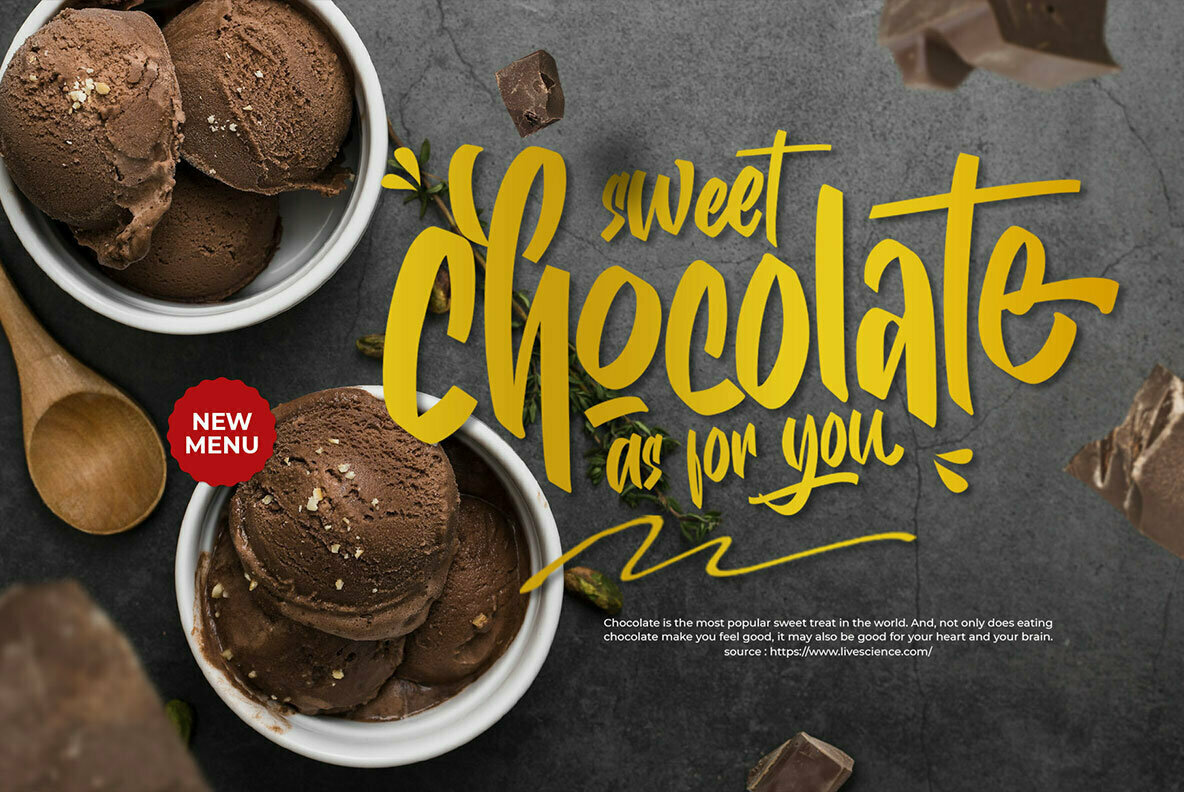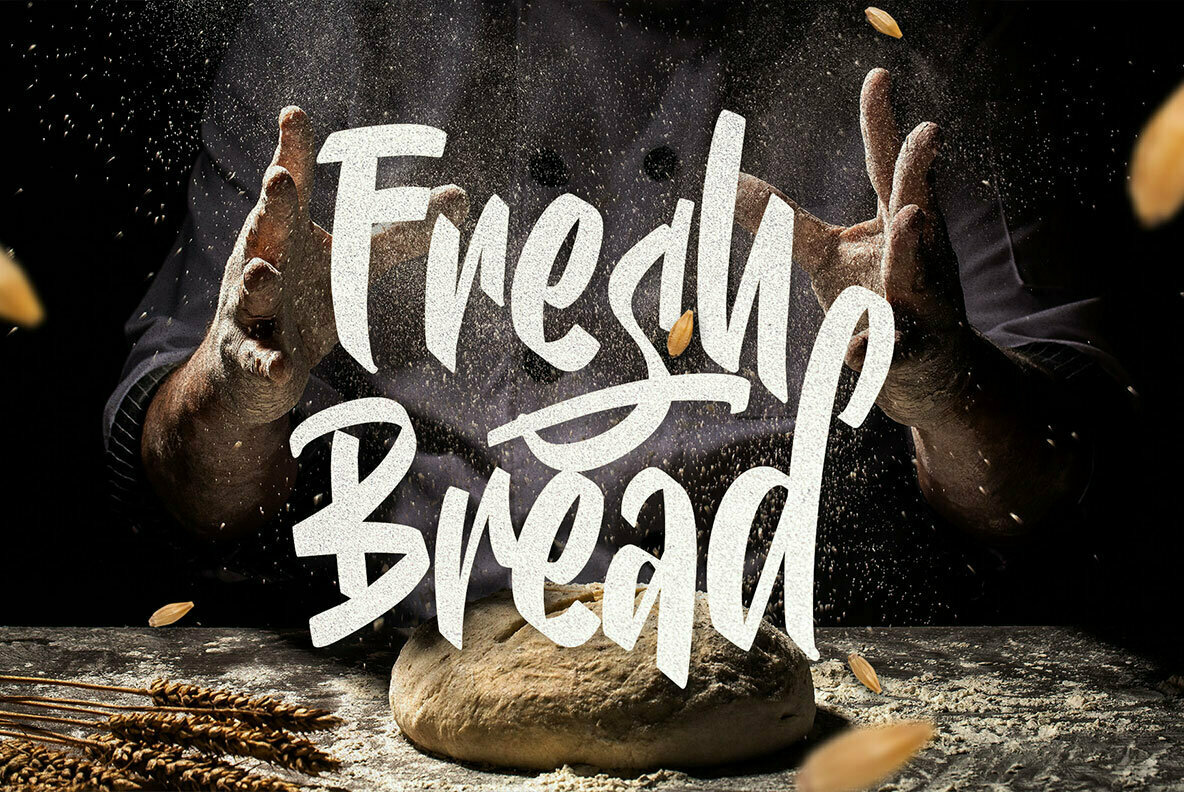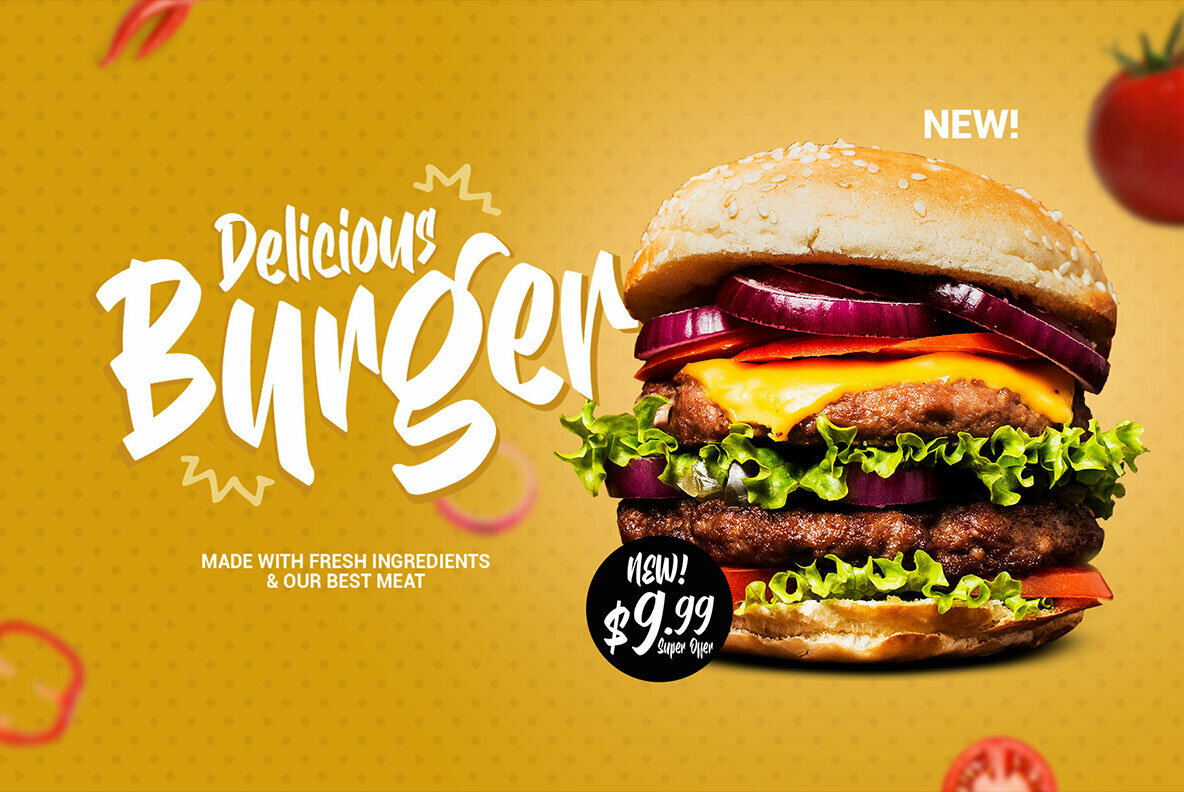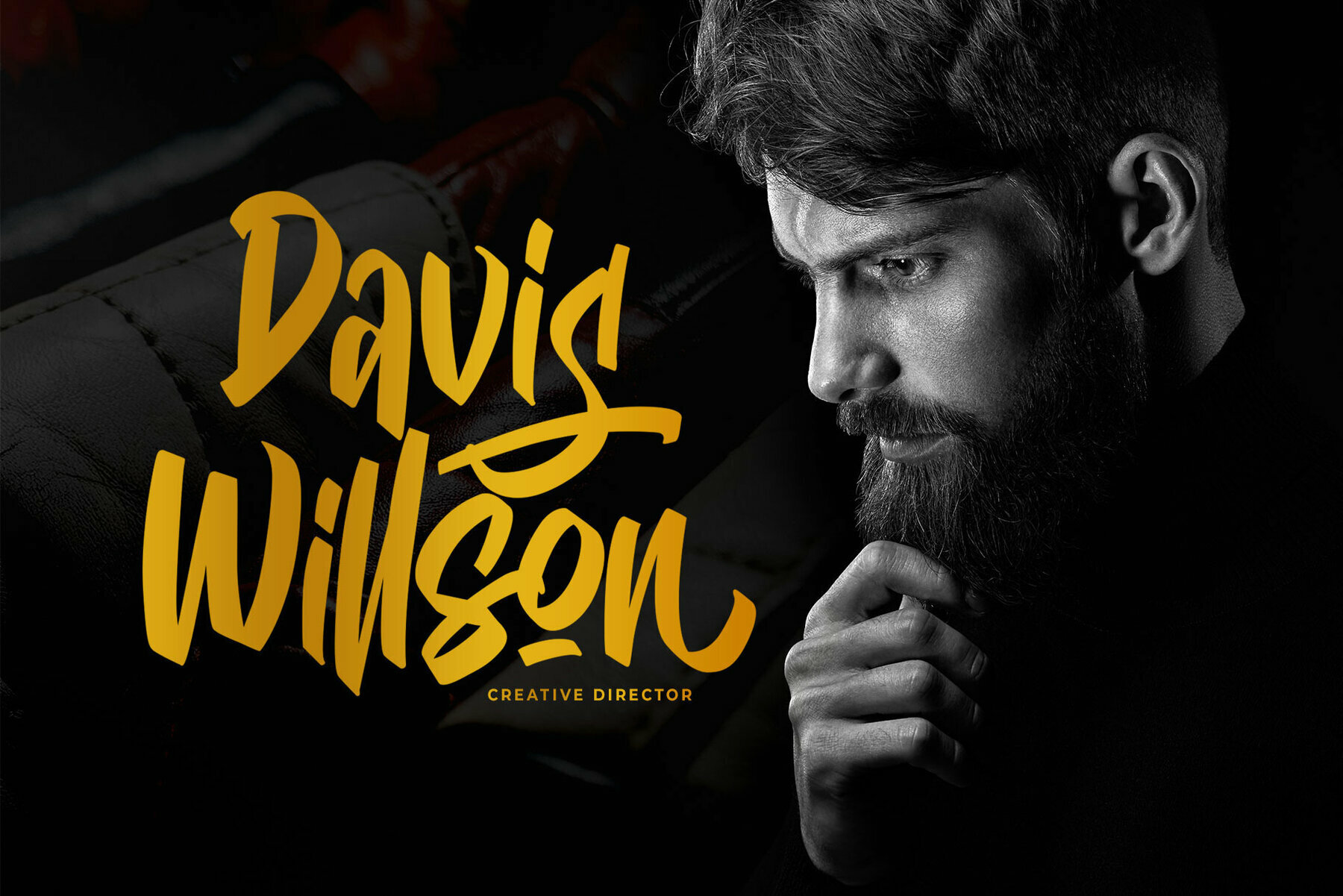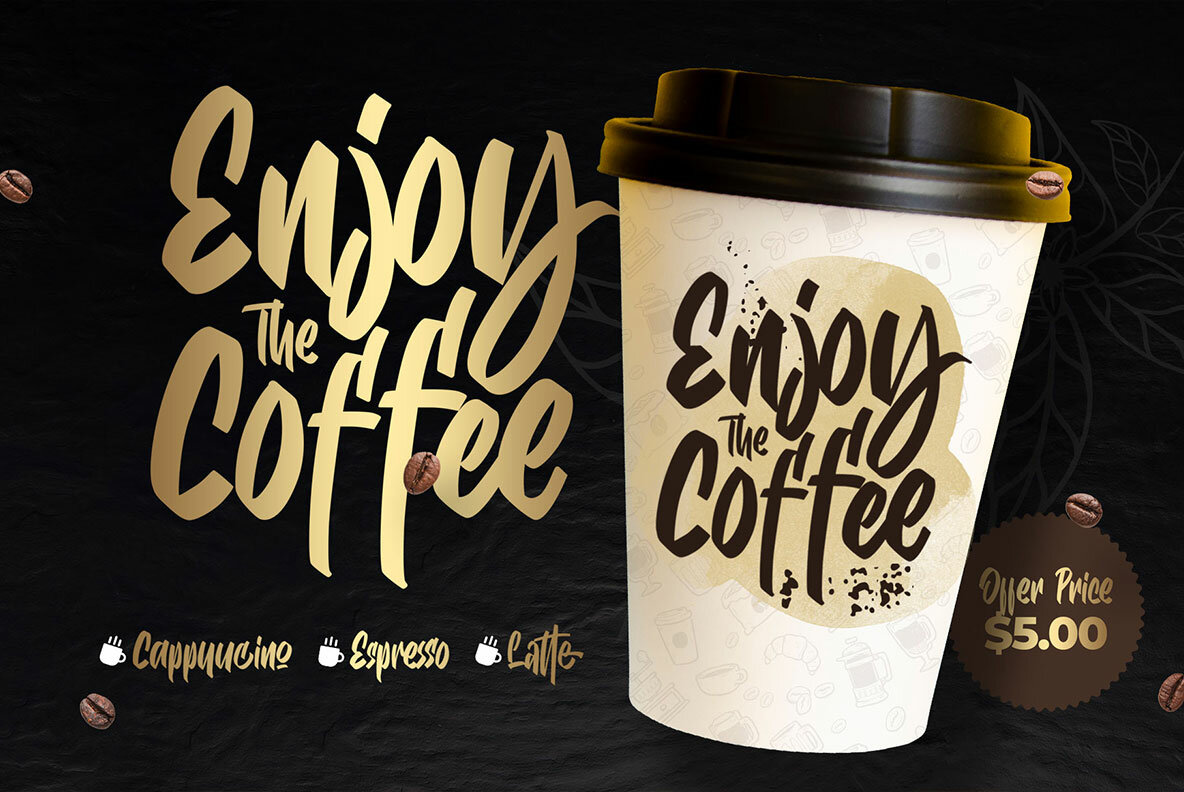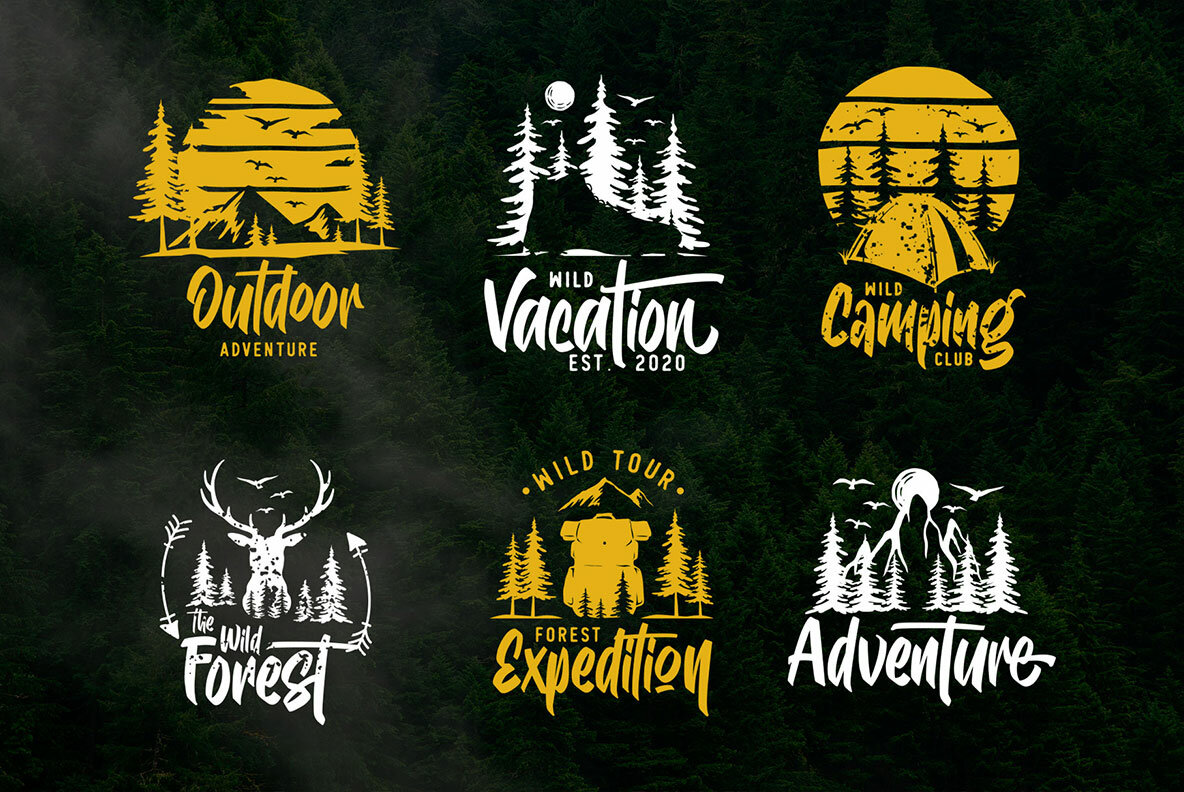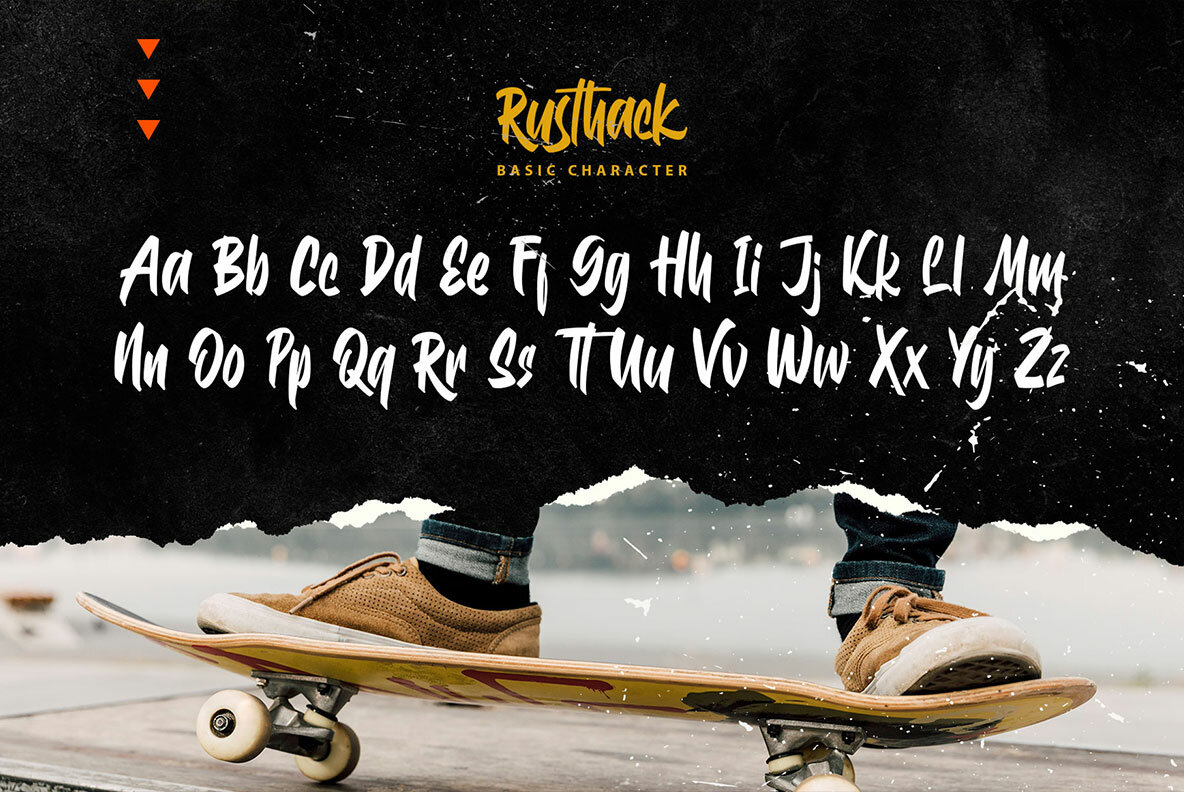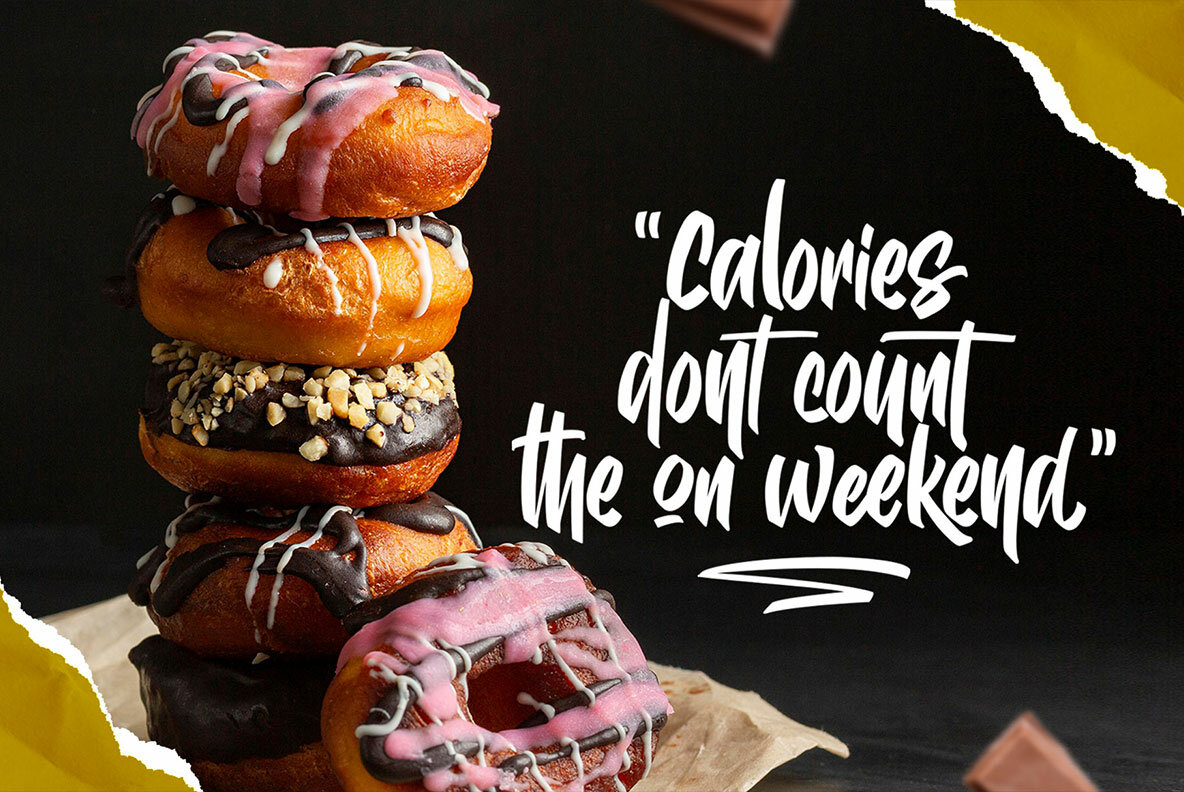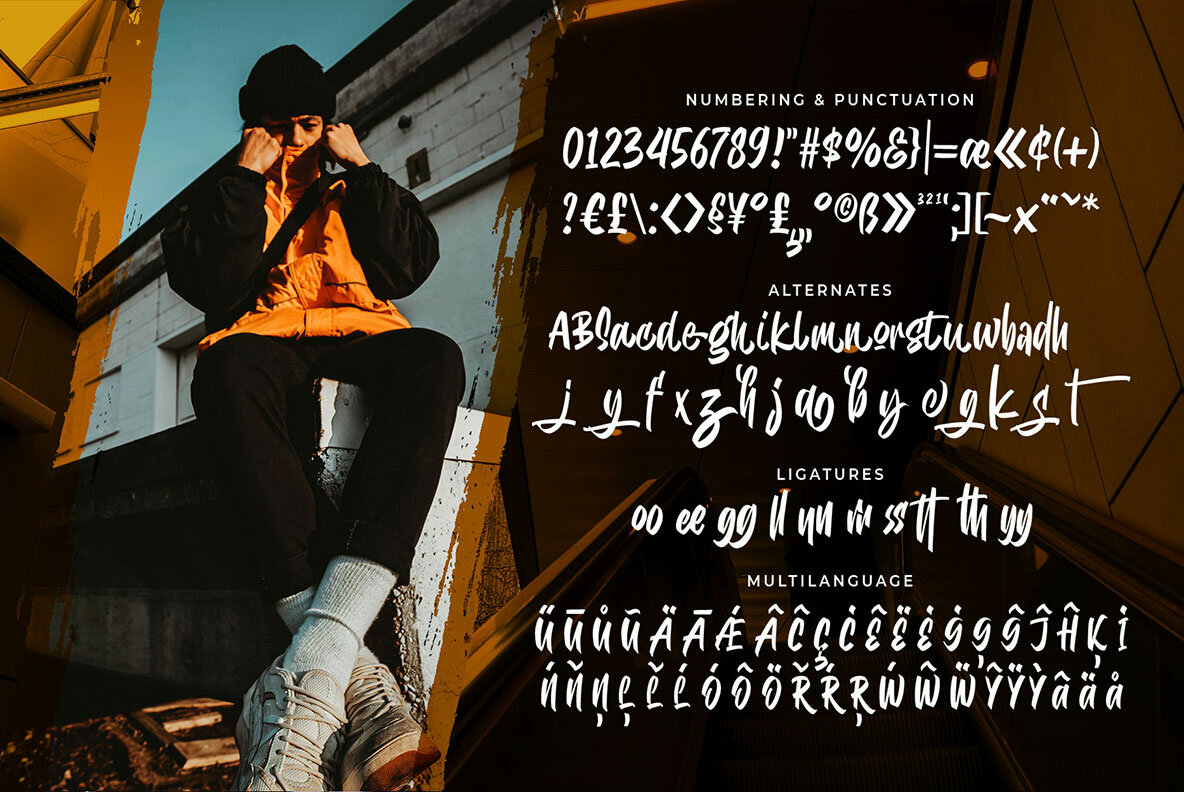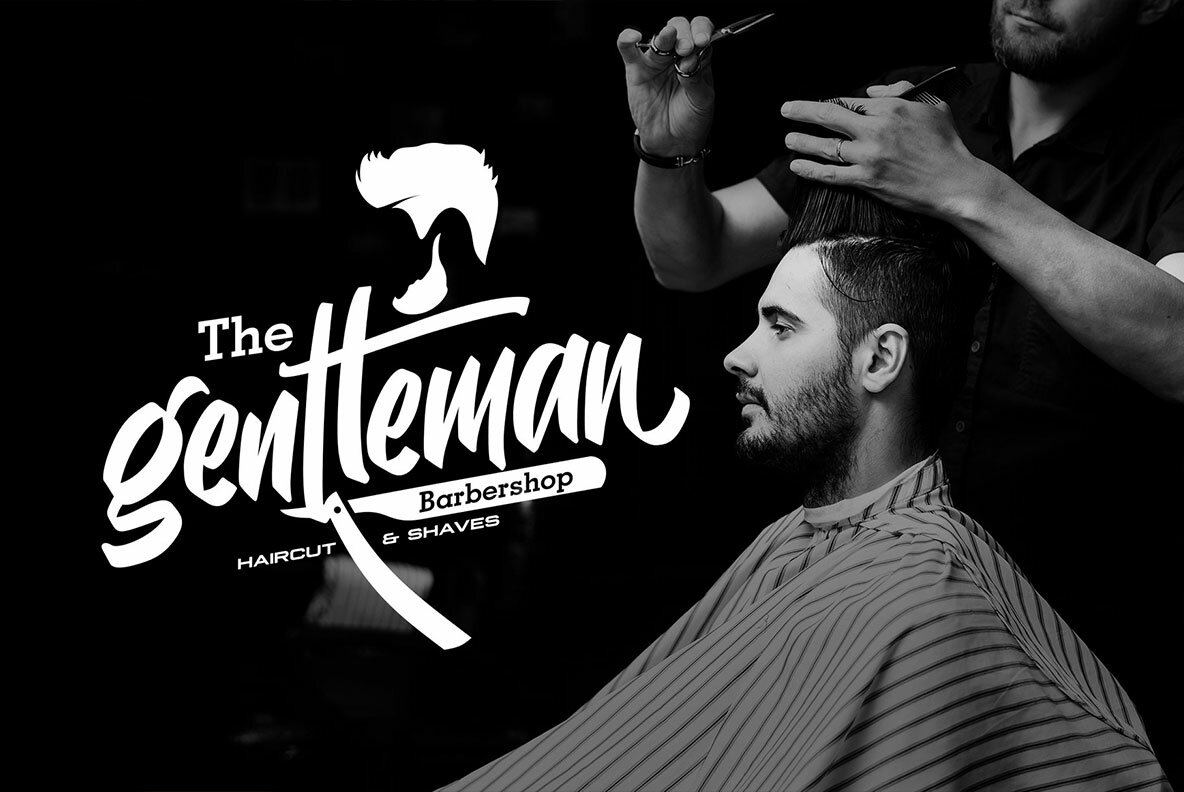
Rusthack Font
Rusthack
Rusthack is a friendly brush font, created with the playful feels of freestyle brush-lettering. This font comes from the manual brush stroke which has an informal stroke thickness that makes the font looks more natural. The versatile design, a combination of brush lettering, and handwriting that you can apply in many themes such as urban, apparel, youth, sports, holiday, food, fashion, vintage, you name it!